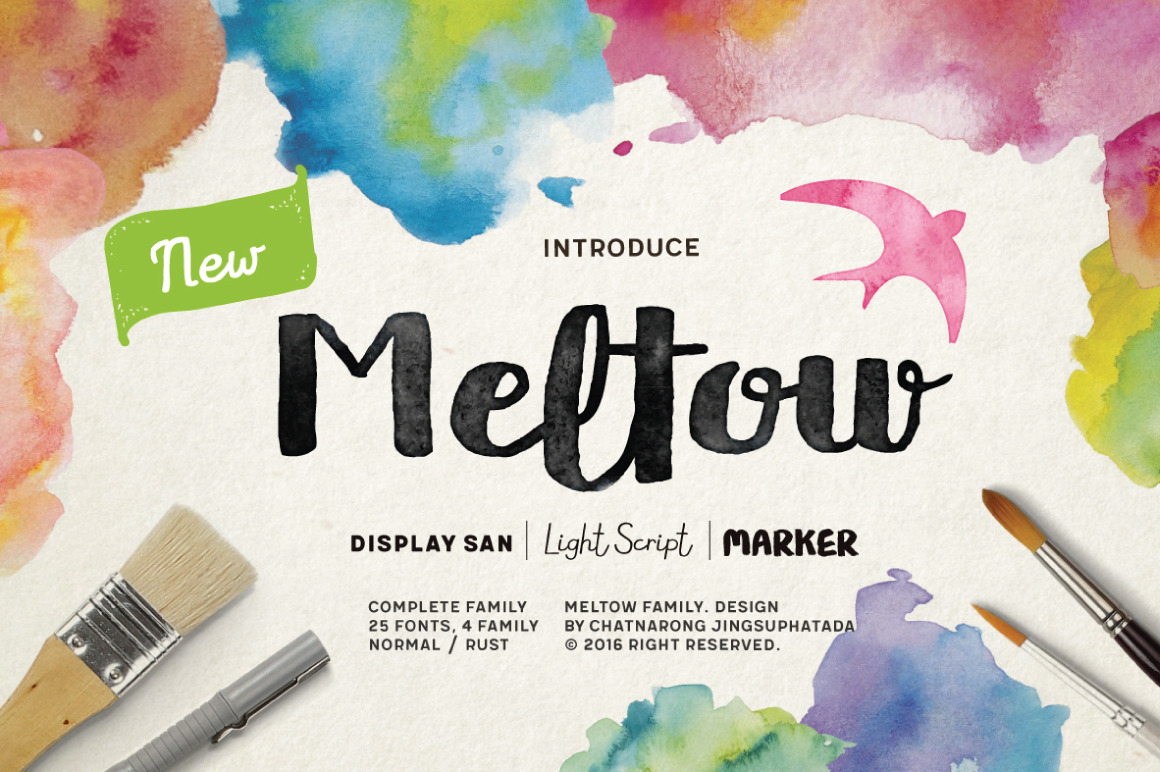
Meltow Font
Meltow Family (Sale 50% From $99) In the age where stationery is replaced by typing devices, Meltow brings back memories with the design created from the actual writing tools and then developed into a convenient-to-use set of font. It features Brush (written with larger painting brush), Script (smaller painting brush), and Hand (watercolour texture). It also comes with a San Serif design to befit a caption, a body and a headline. With the Rust option for a retro appeal and an all-round usage, a mix of Meltow and other types can bring you something new.
Offering 25 letters in 4 options, Meltow is most desirable for your creative projects. (OTF/TTF)introductory sale limited time offe